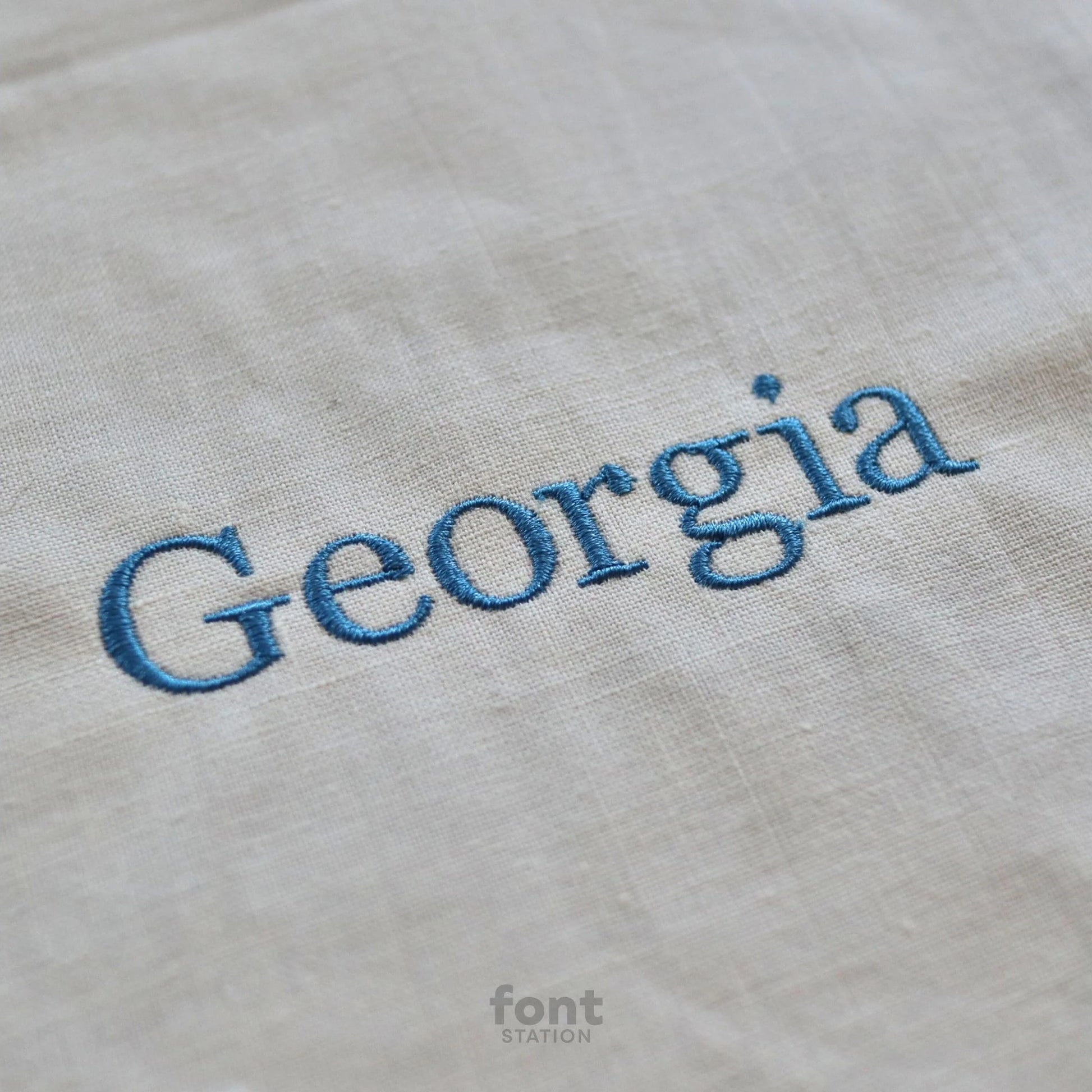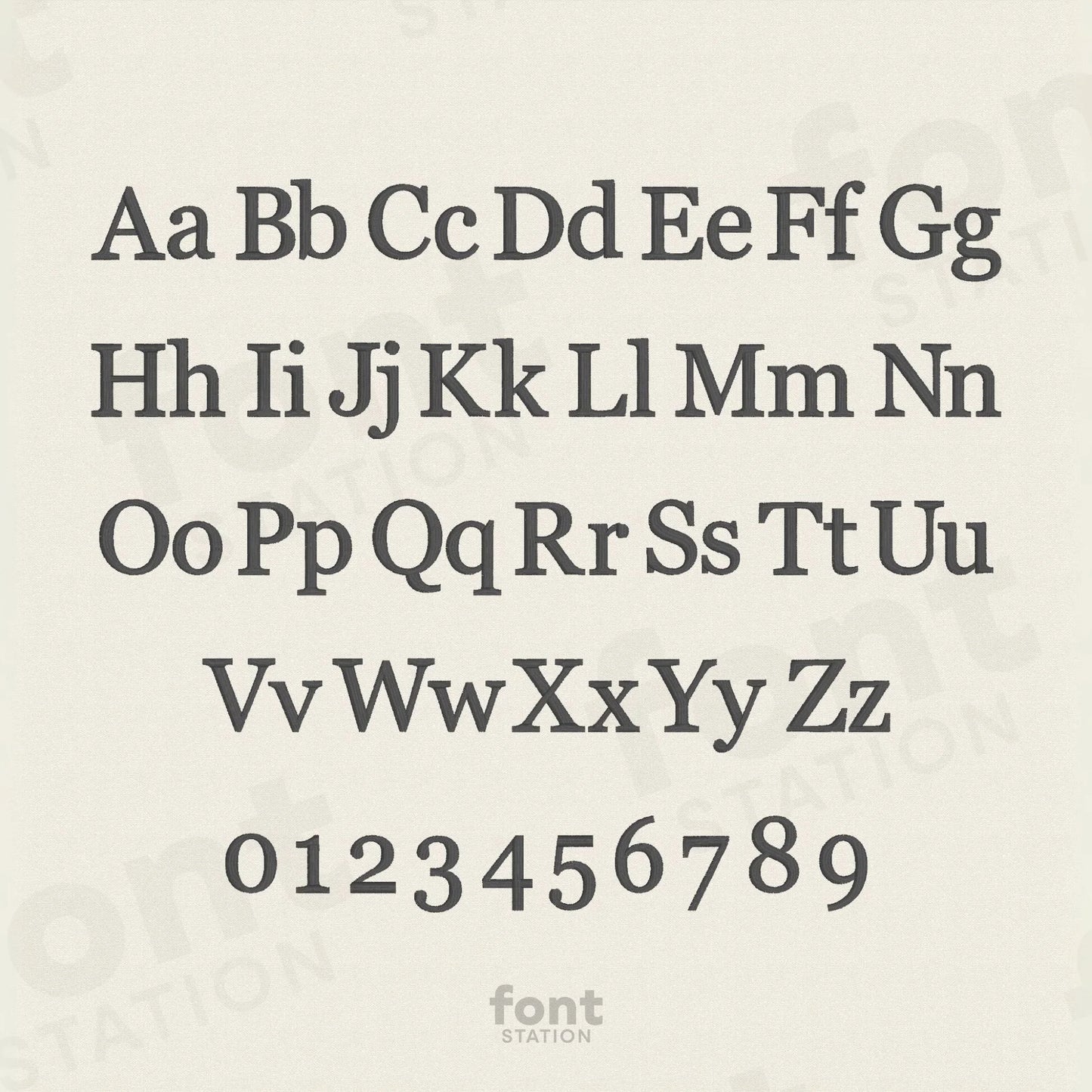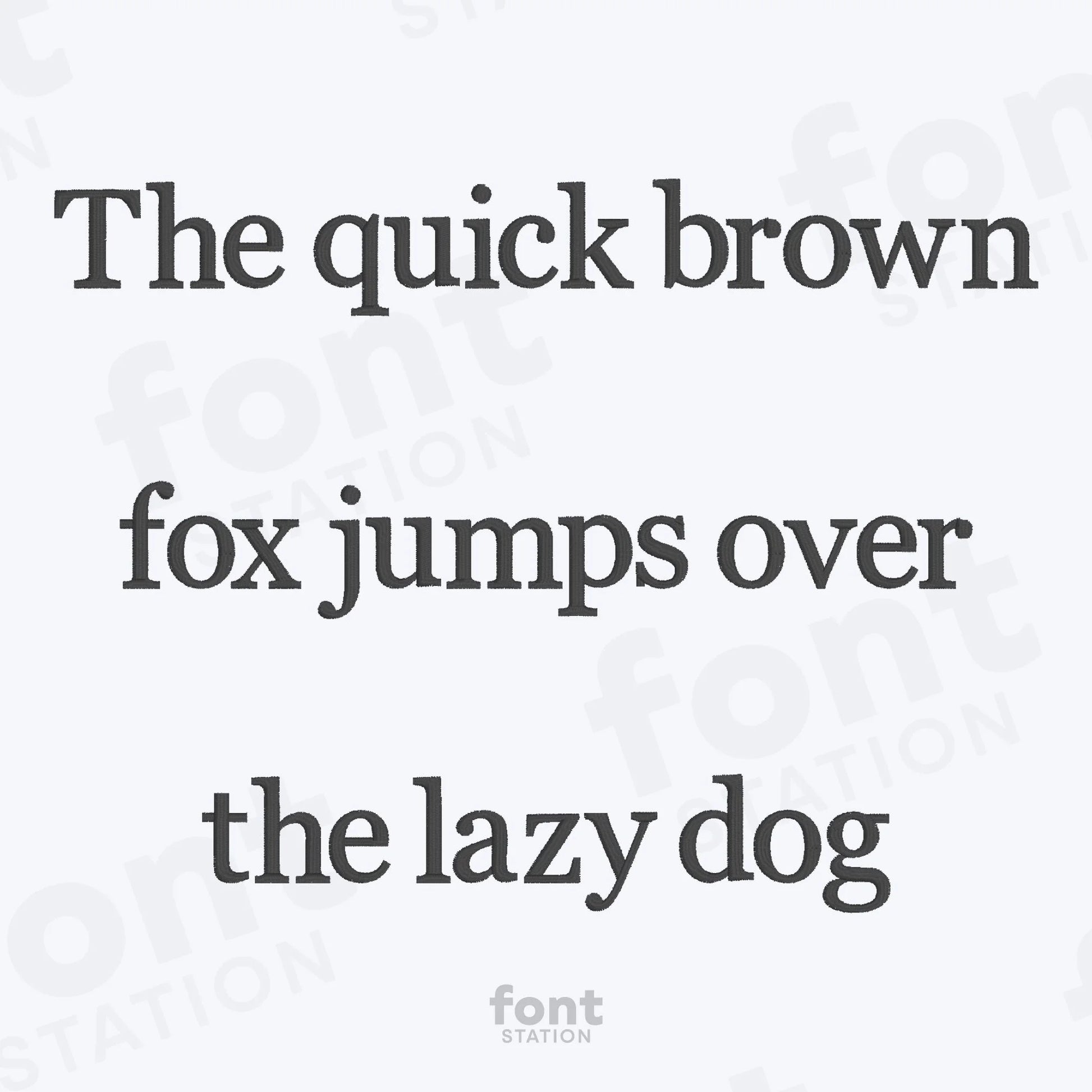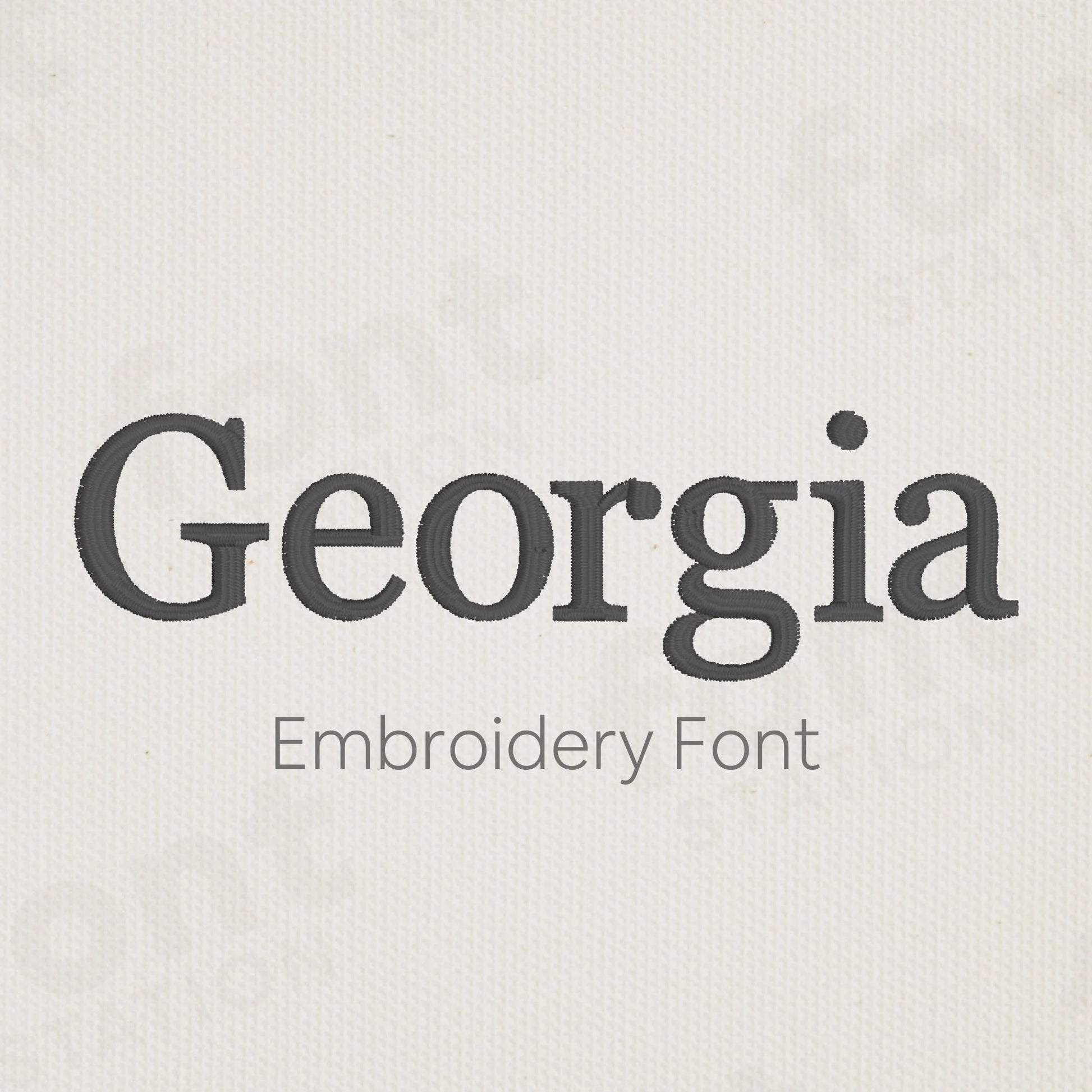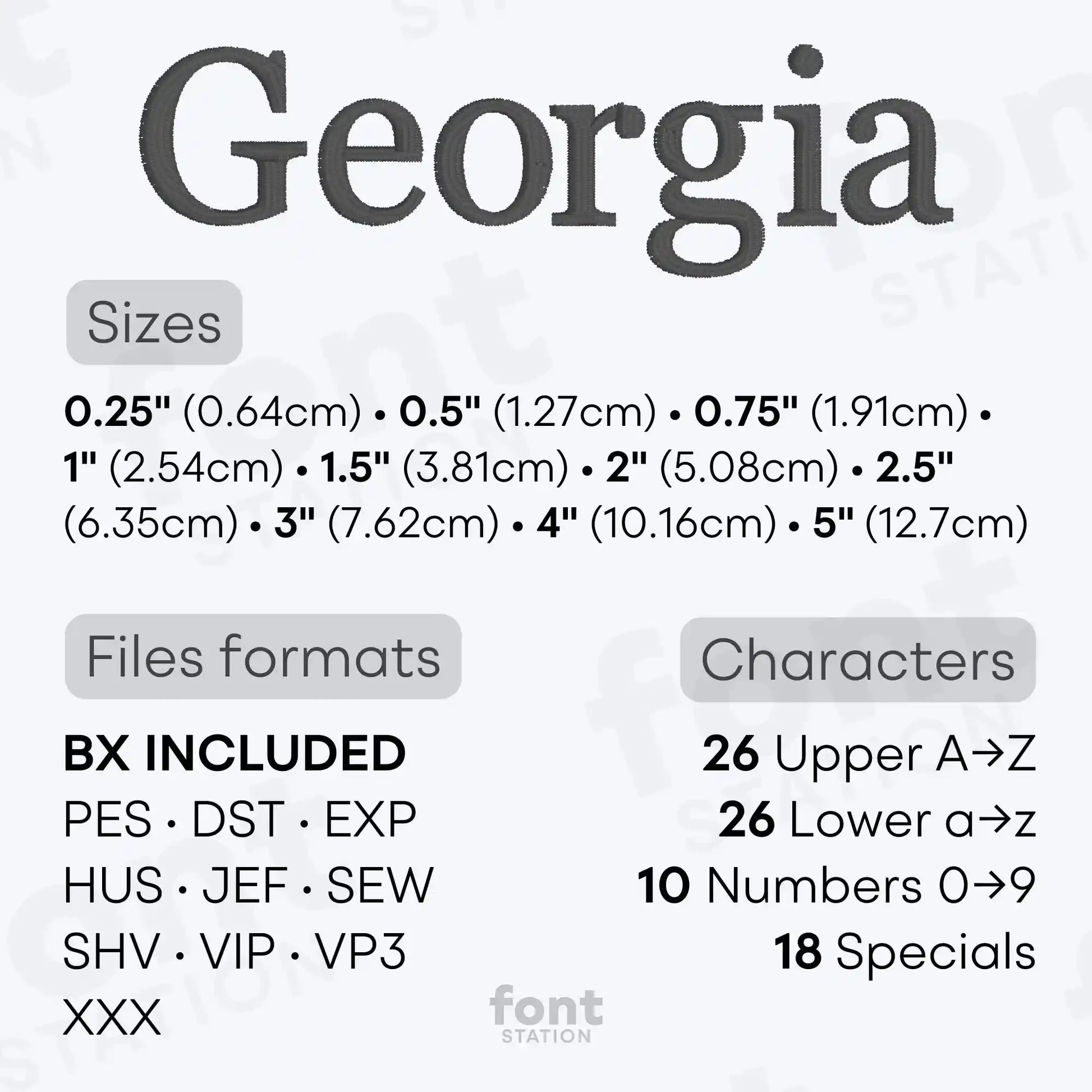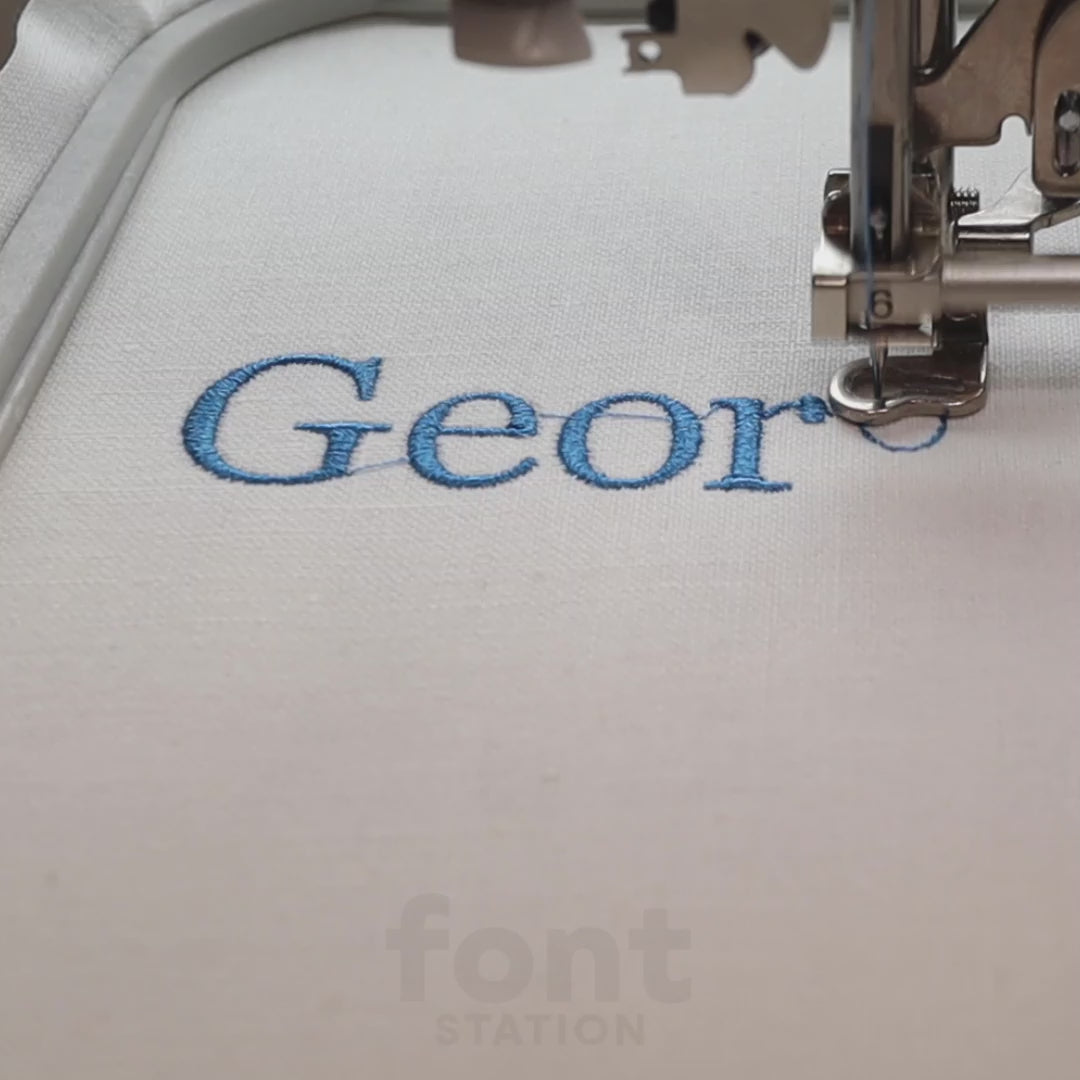
Georgia Embroidery Font
Our Georgia embroidery font is a classic serif-style alphabet that’s the perfect addition to your embroidery collection. Add a timeless, elegant touch to your creations with clean, machine-ready letters.
About the Georgia Embroidery Font
Add a strong, classic feel to your designs with our Georgia embroidery font!
Our Georgia embroidery font is a timeless serif embroidery alphabet, professionally digitized for clean, crisp stitching on most fabrics. Perfect for vintage-style embroidery projects, this bold, classic font is a favorite among our customers.